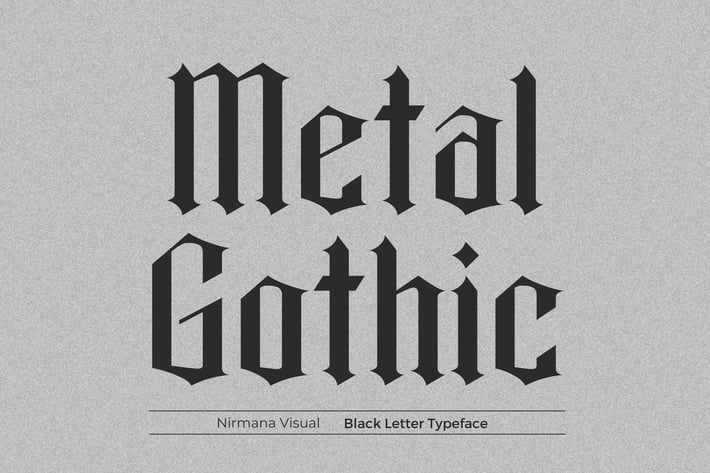
Metal Gothic - Logo Font
Metal Gothicoffers beautiful typographic harmony for a diversity of design projects, including logos & branding, social media posts, advertisements & product designs.